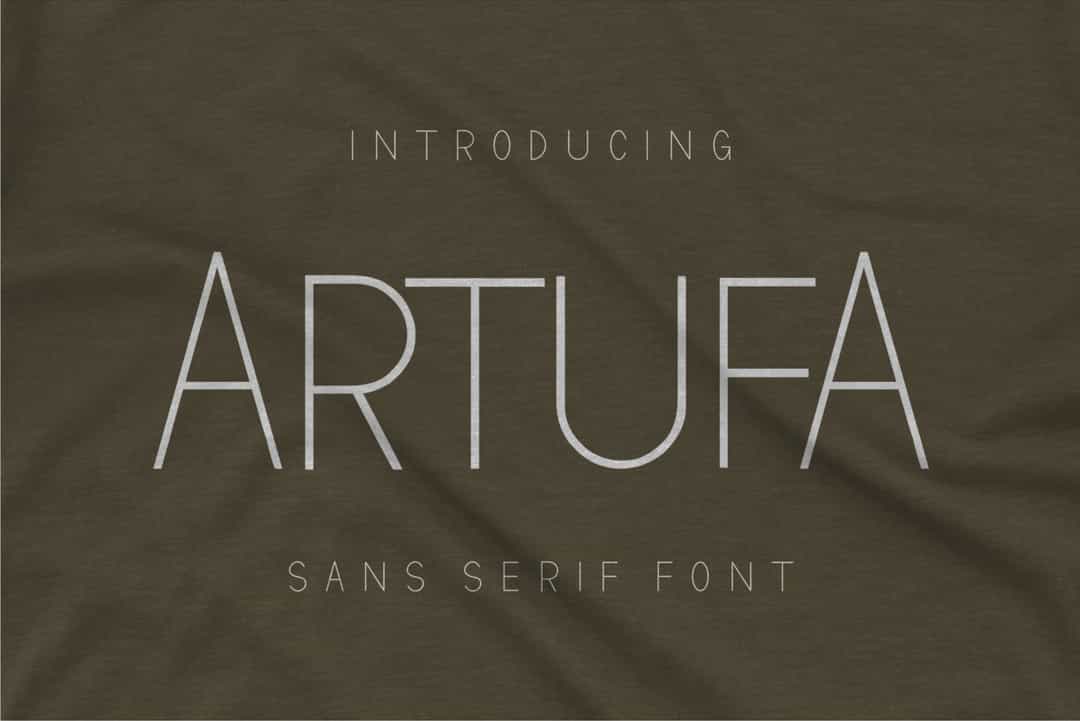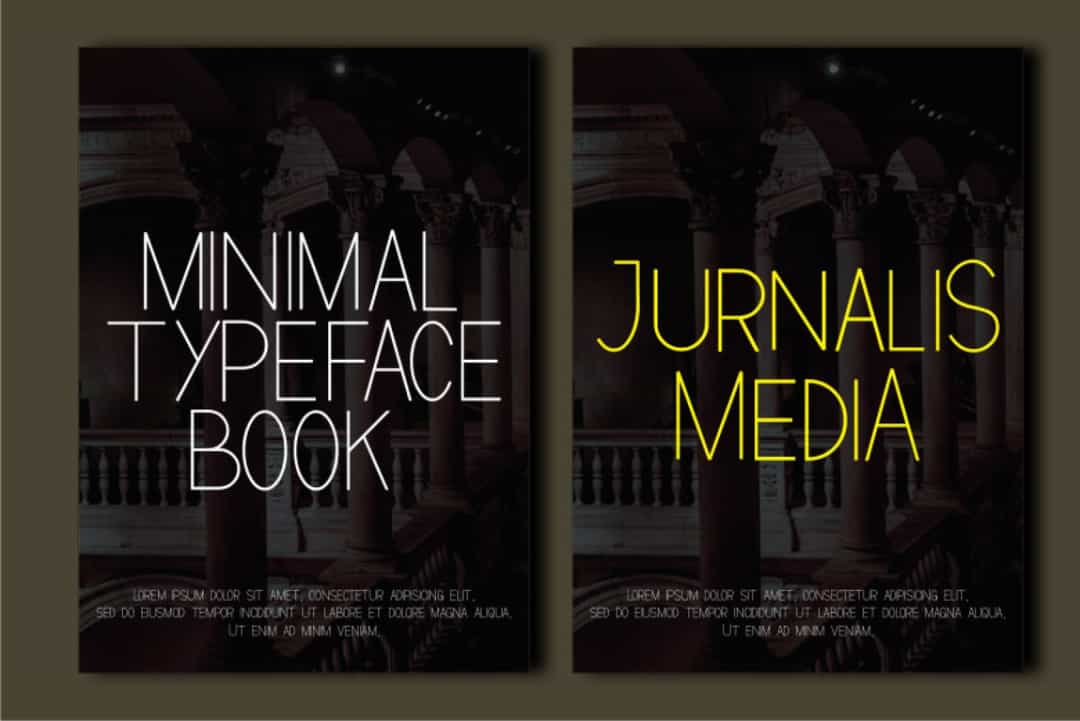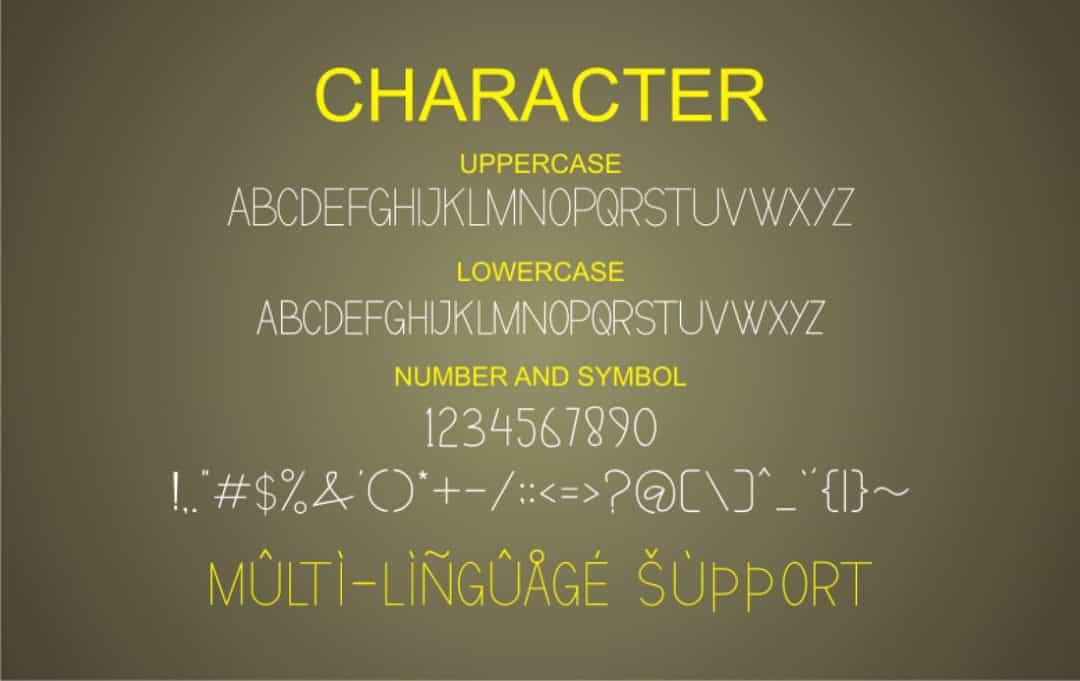
Artufa Font is a minimalist yet elegant sans serif font that works seamlessly across various designs – perfect for making your creative ideas shine out! Integrate Artufa into your creativity today and see it take shape before your very eyes!